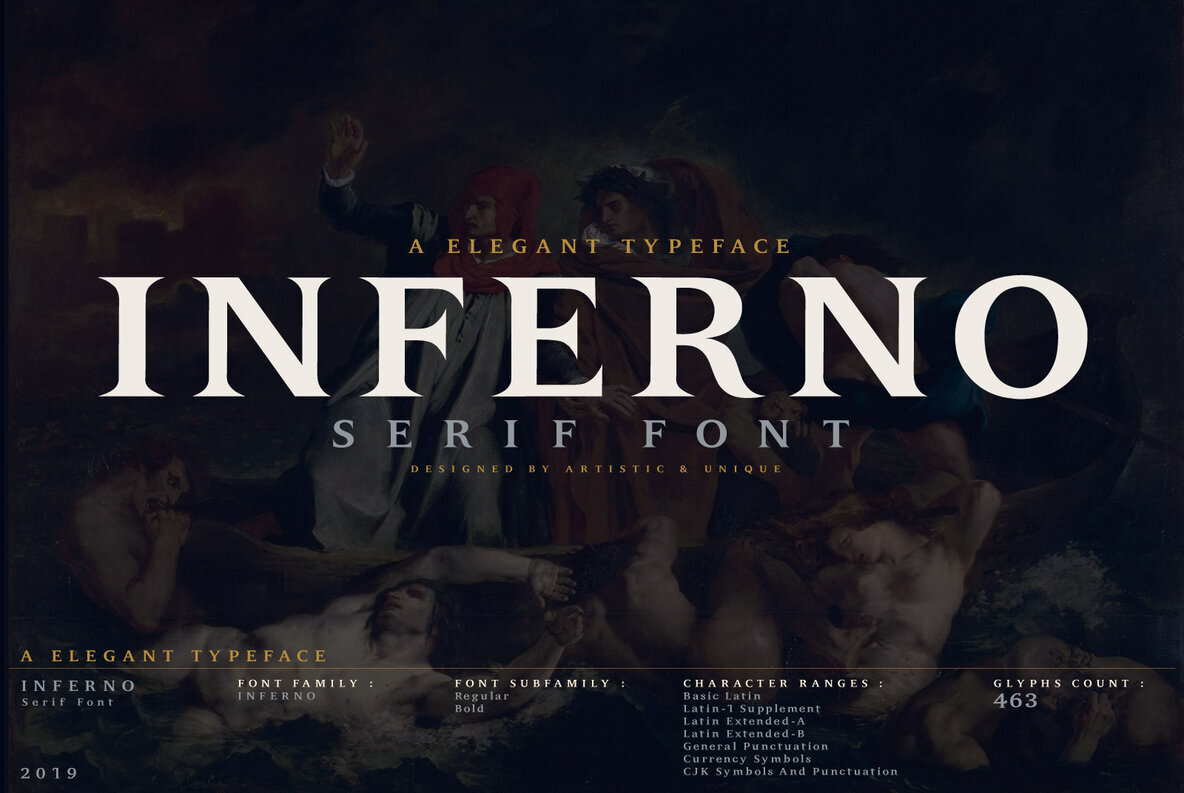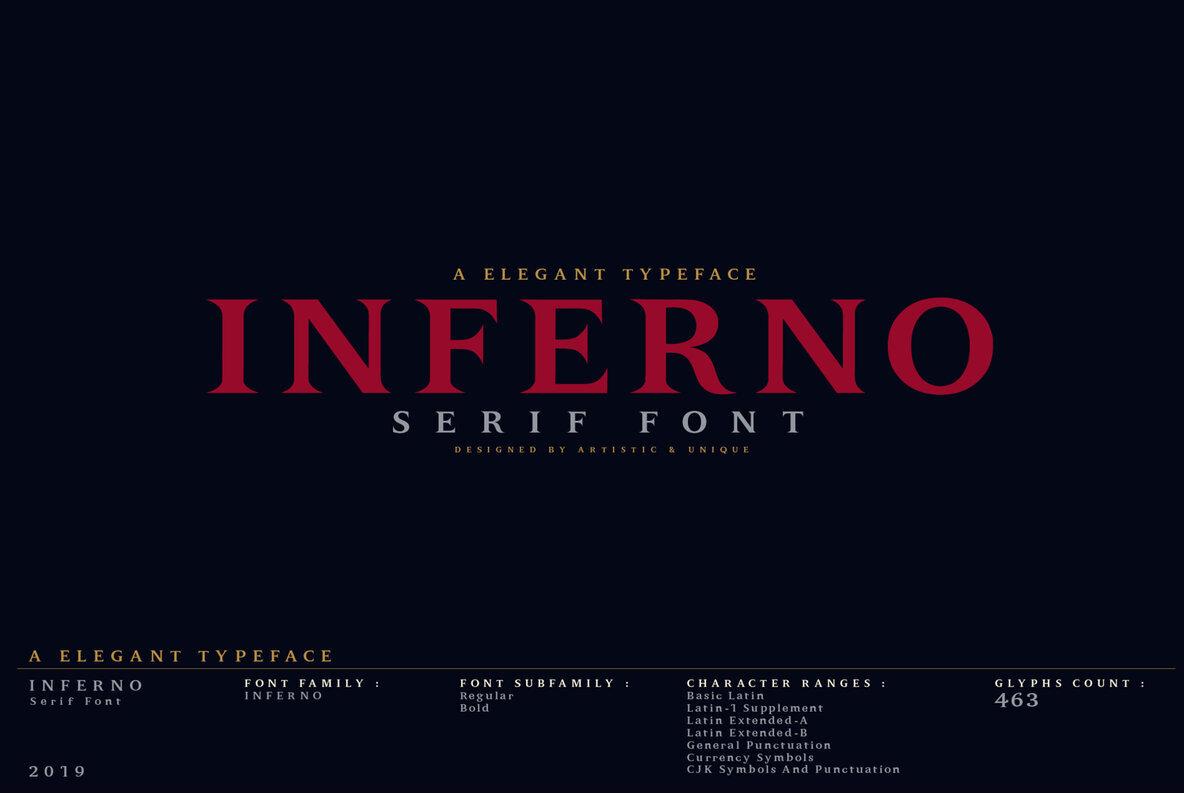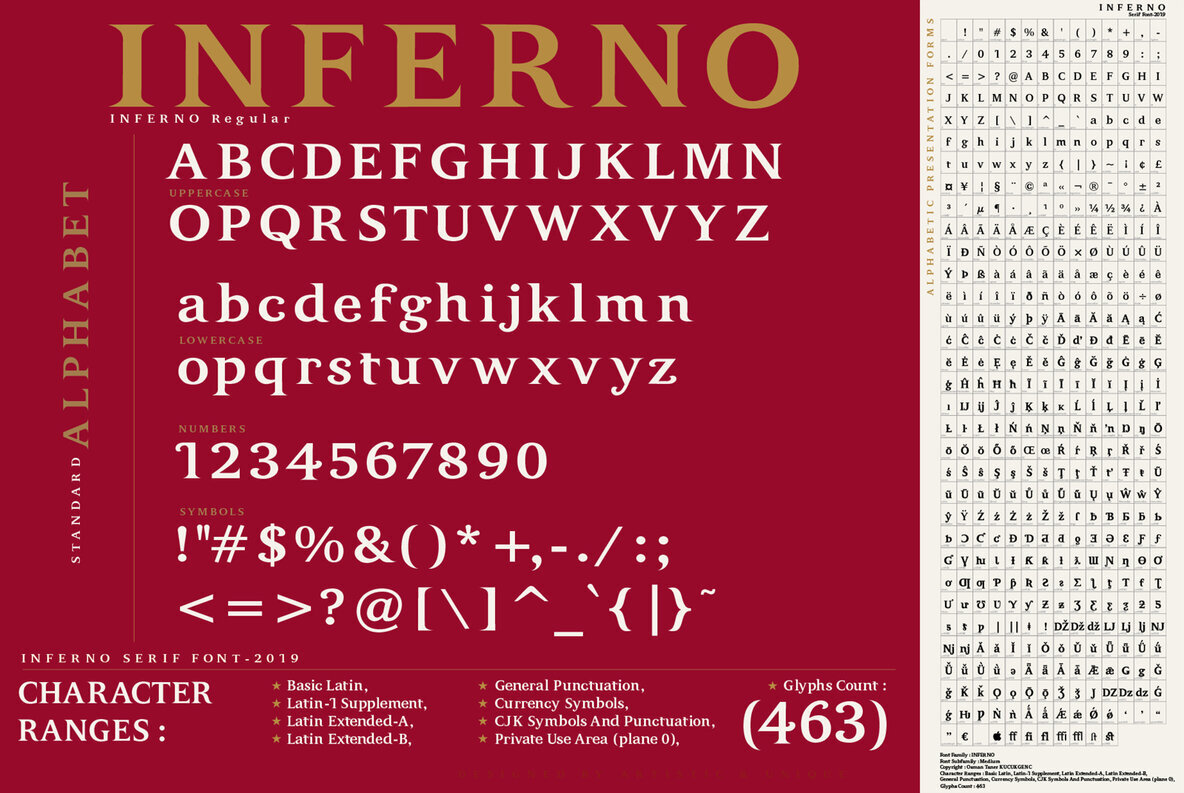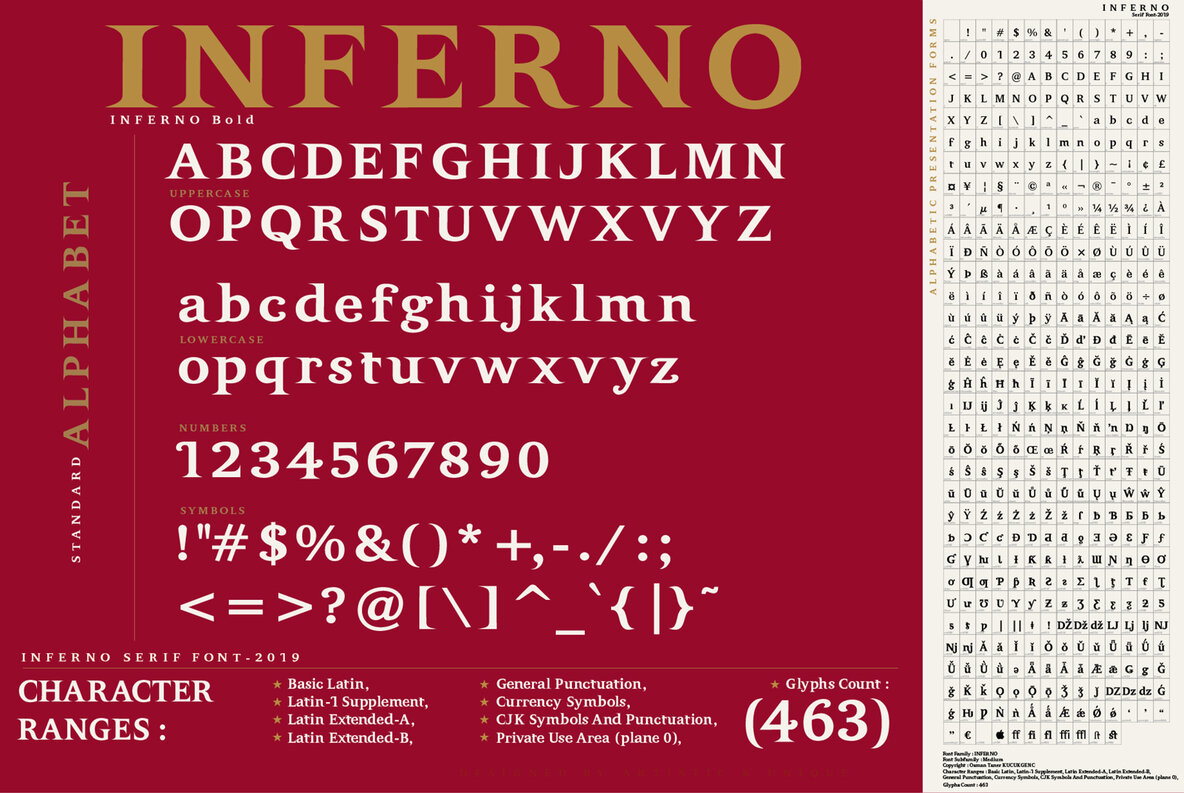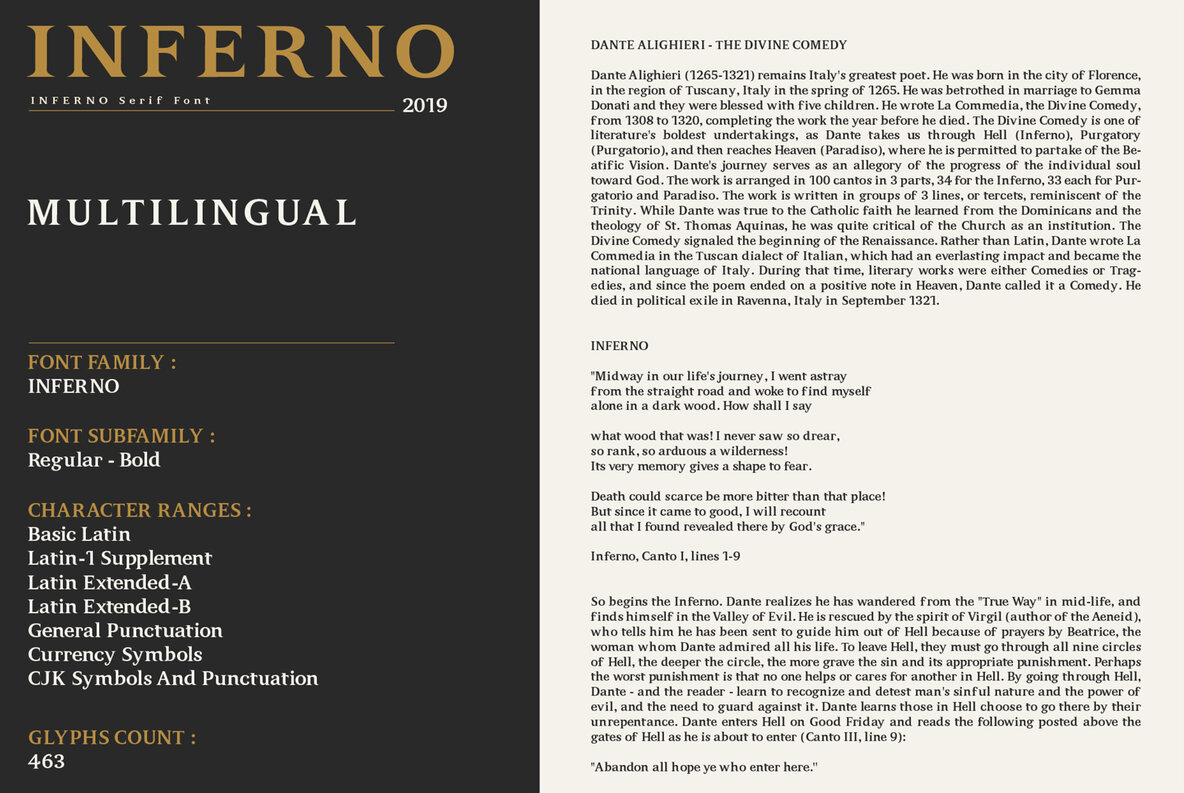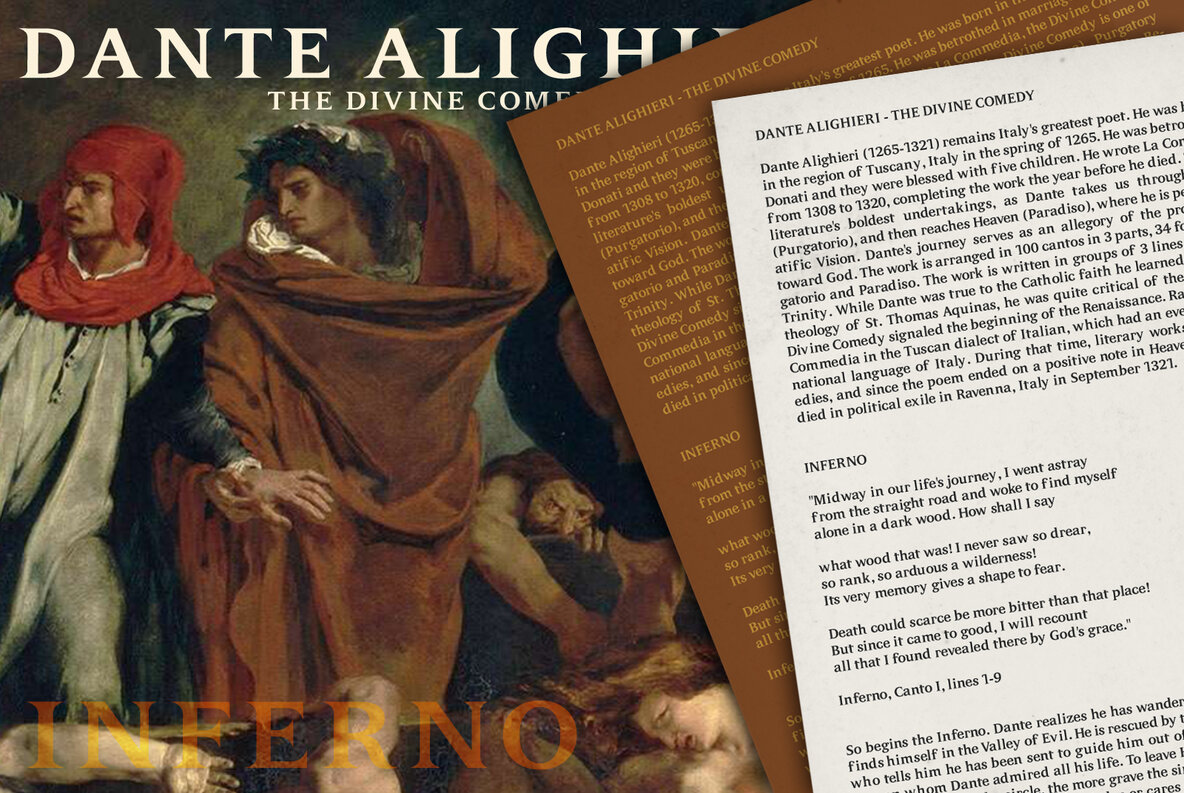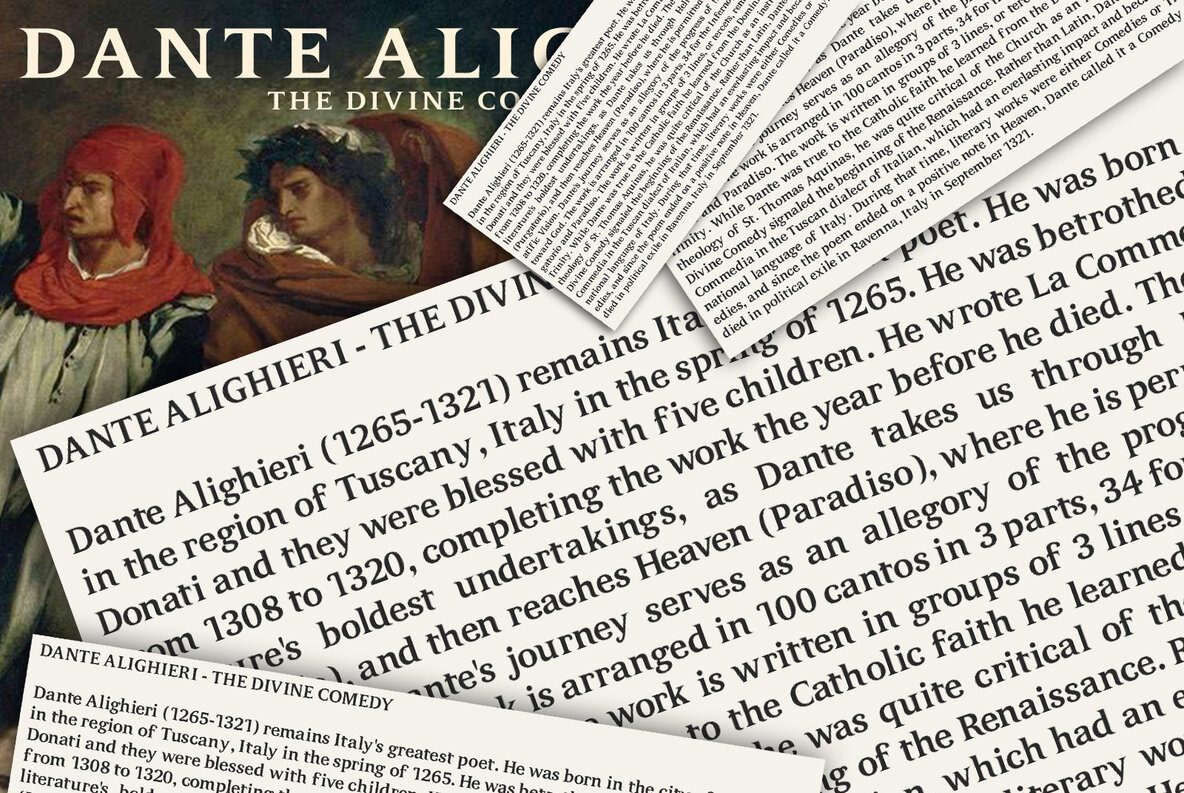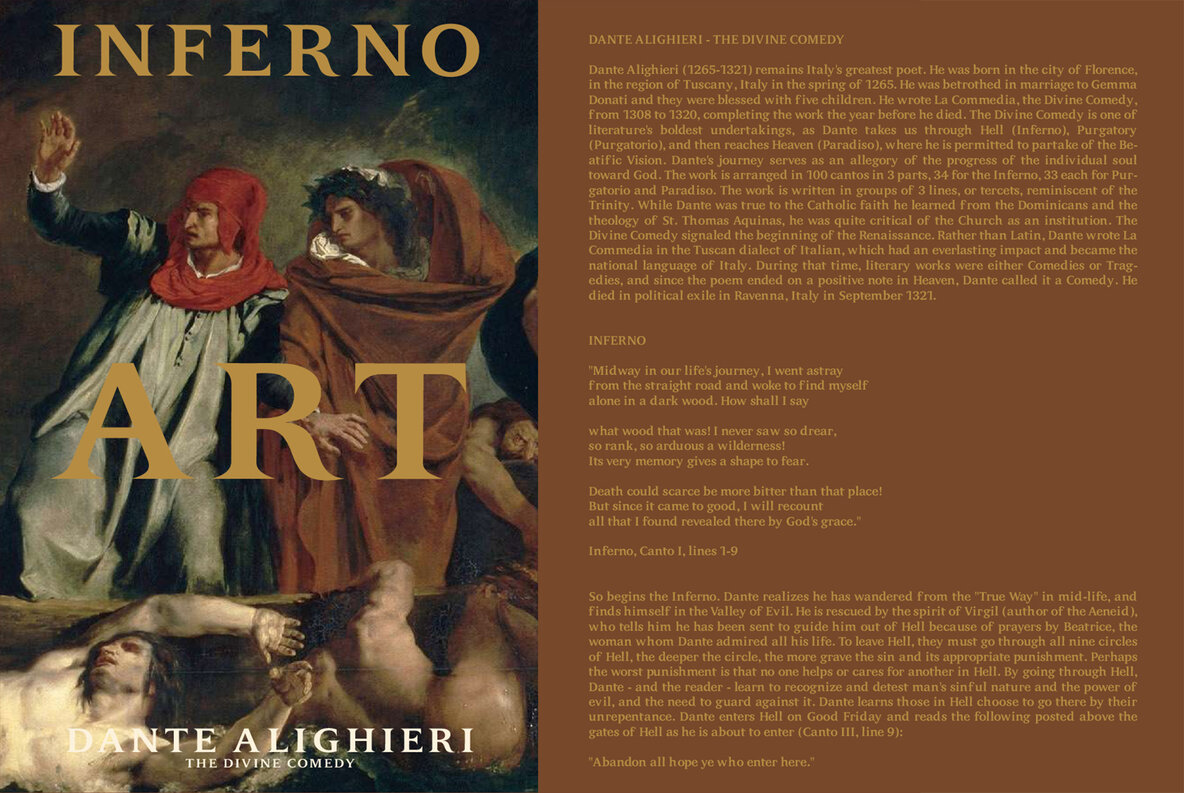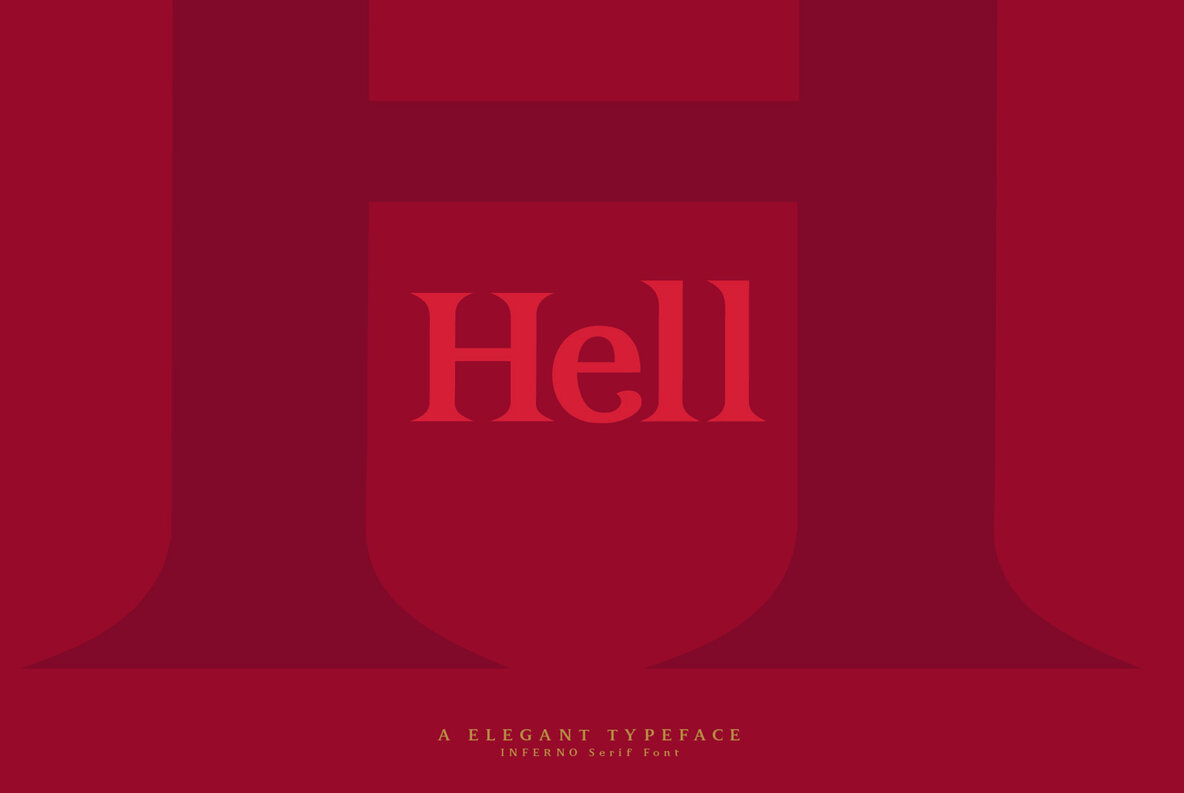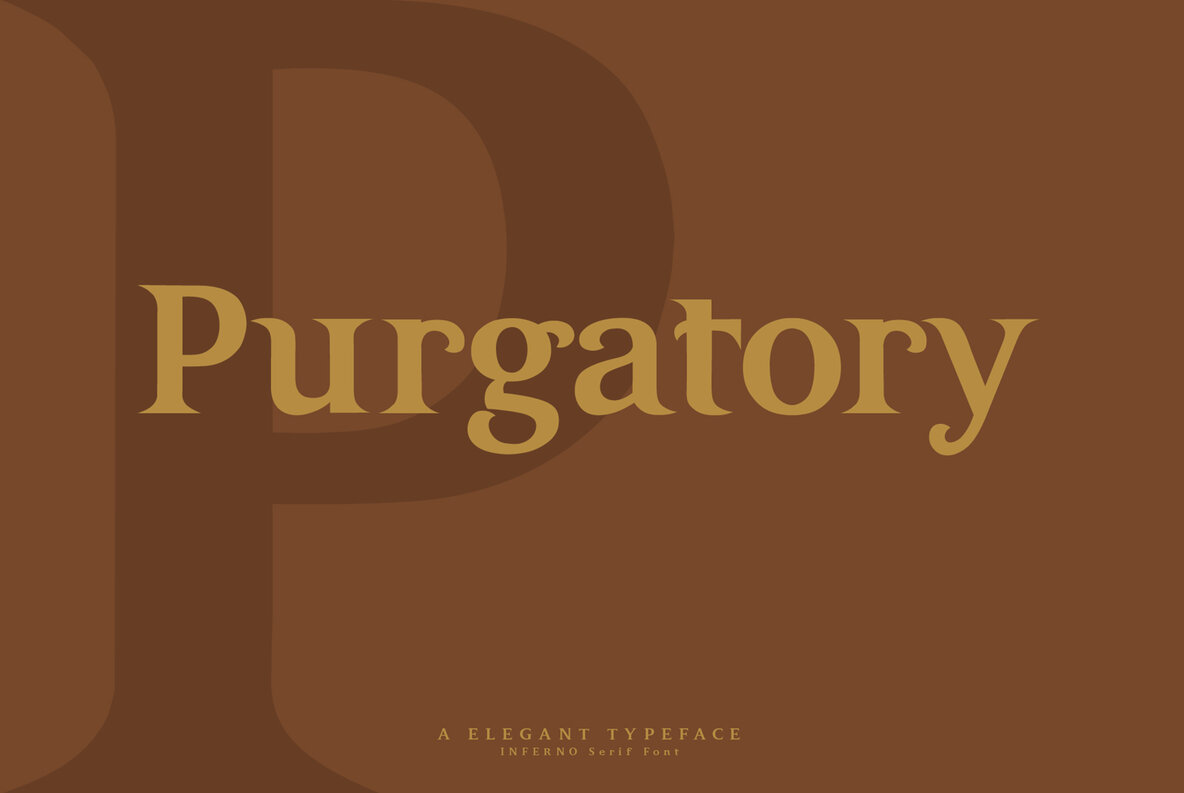
Inferno Font
The Inferno serif font family effortlessly merges the timeless elegance of Renaissance typography with contemporary elements, boasting a striking balance between tradition and modernity. Its sharp serifs and high contrast make it an ideal choice for designers seeking sophistication and clarity in their projects. Featuring a compact design, Inferno is crafted with strong serifs, symmetrical curves, and a distinct vertical axis, ensuring legibility and aesthetic harmony. Its simplicity doesn’t compromise on versatility, making it fit for various typographic bodies in both digital and print media. With a total of 463 glyphs, the Inferno serif font empowers designers to create distinct and memorable designs.Inferno: A Classical Serif Font with Modern Appeal